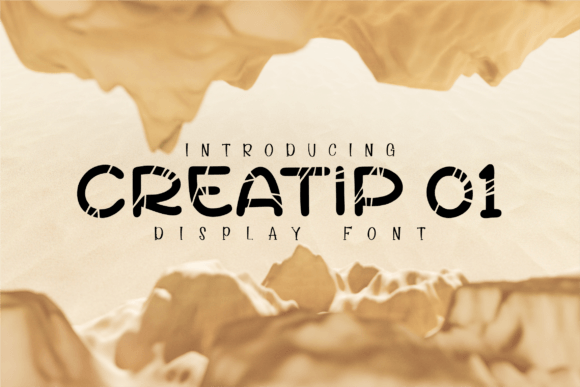
Unleash your creativity and make a statement with Creatip 01, the captivating display font that will transform your words into captivating works of art. Designed by the talented emprit.graphic, Creatip 01 breaks the boundaries of ordinary typography with its distinctive broken letters, adding a touch of artistic flair to your text.
Immerse yourself in the world of Creatip 01 and discover a font that commands attention. Its visually striking appearance makes it the perfect choice for eye-catching headlines, posters, and creative projects. Let your words dance across the page, captivating your audience with their unique and unforgettable style.
Whether it's a Christmas sign that radiates holiday cheer or a poster that demands attention, Creatip 01 rises to the occasion. Its bold and confident strokes create a sense of movement and energy, drawing the eye and igniting imaginations.
With Creatip 01, you hold the power to transform the ordinary into the extraordinary. Its broken letters add a touch of intrigue and charm, inviting your audience to explore the depths of your creativity. Unlock the boundless possibilities and let Creatip 01 elevate your designs to new heights.